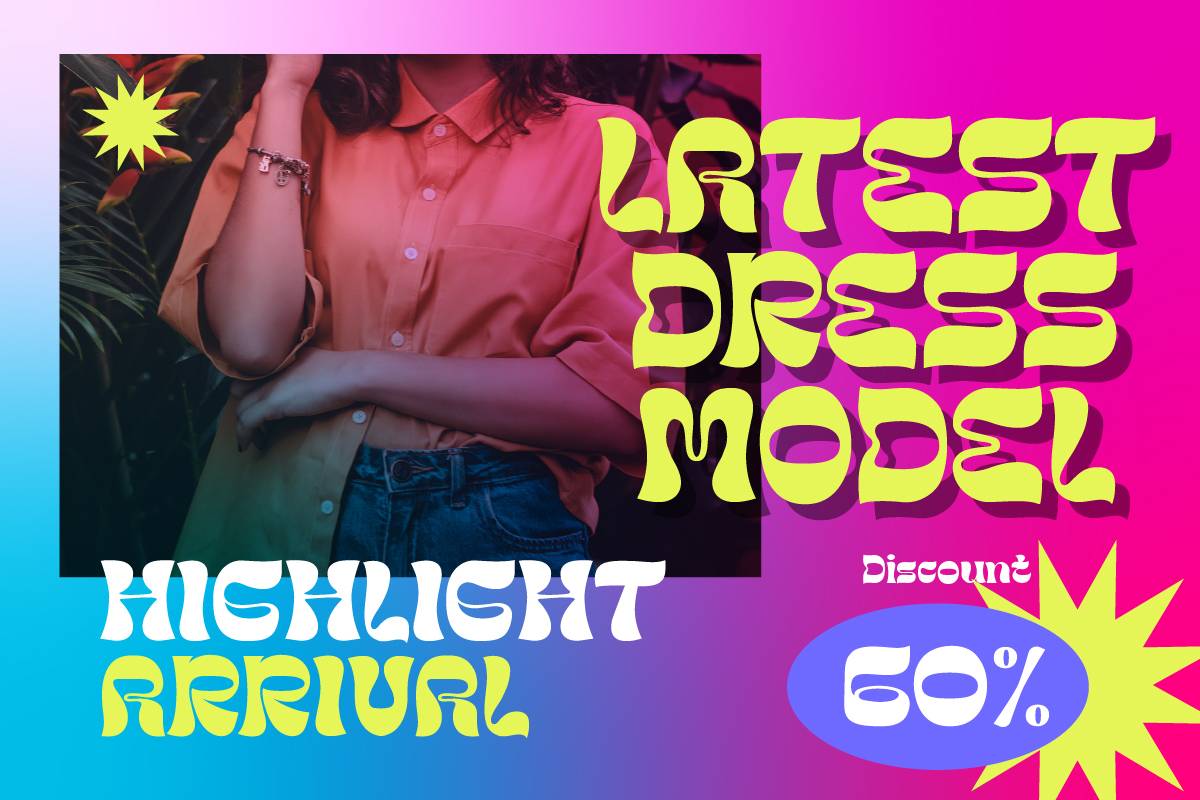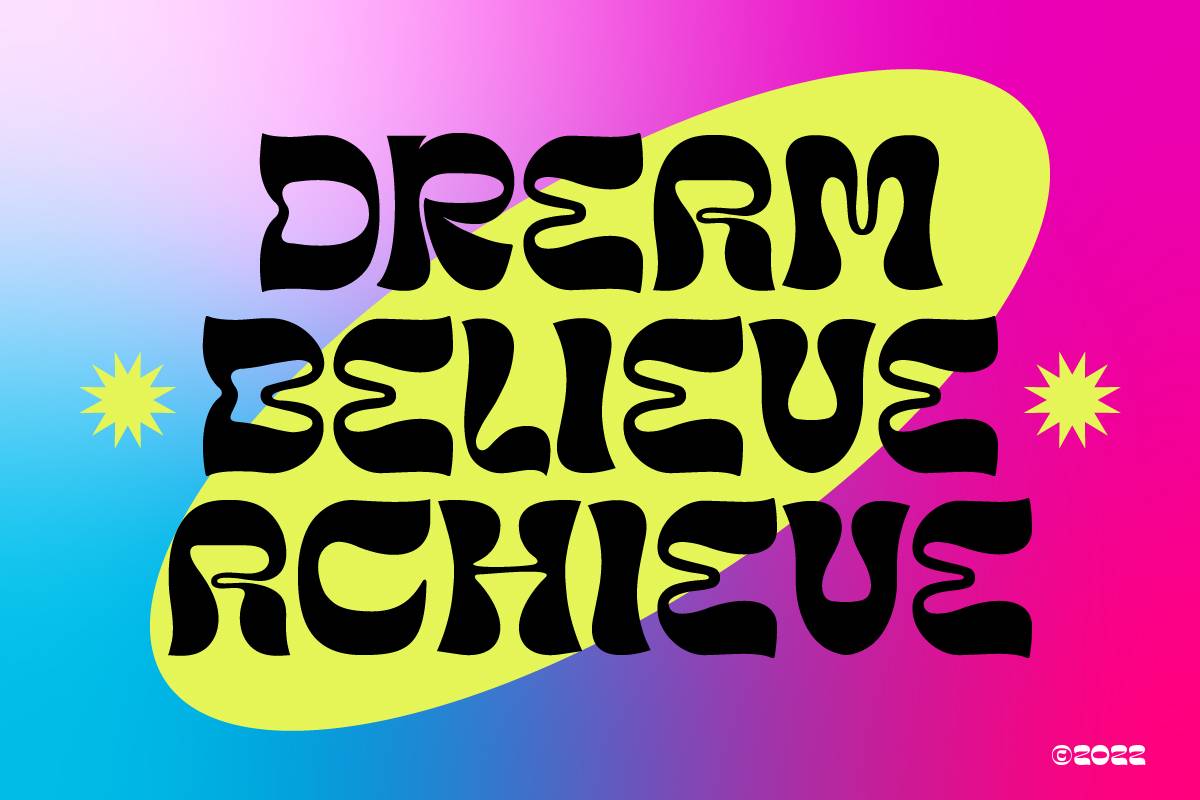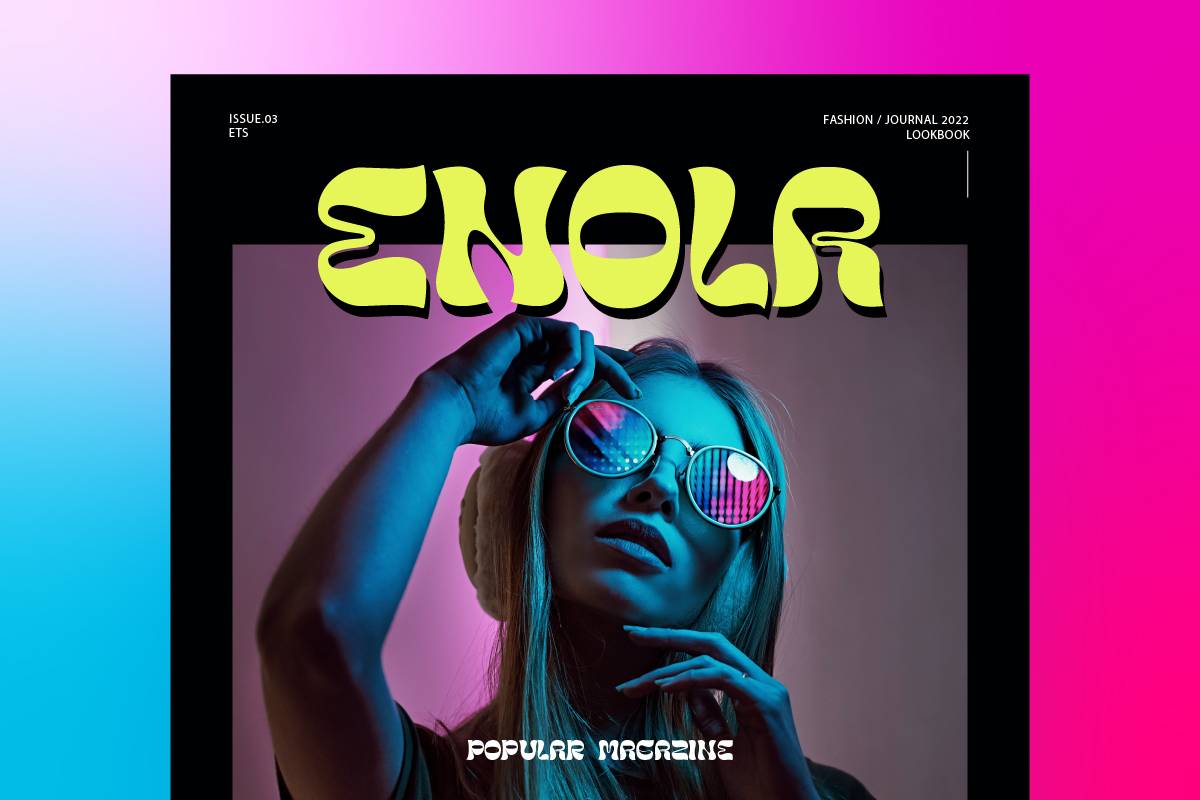
Deserved is a bold, playful serif font with a unique, slightly condensed structure and high contrast between thick and thin strokes. Its quirky, rounded serifs and distinctive letter shapes give it a lively, retro feel that adds character to any design. This font works wonderfully for creative branding, eye-catching headlines, and packaging where a fun yet strong personality is needed.
Deserved Font
About Deserved Font
| Font family | Deserved Font |
| Release date | 2022-01-05 |
| Designer | Ronny Studio |